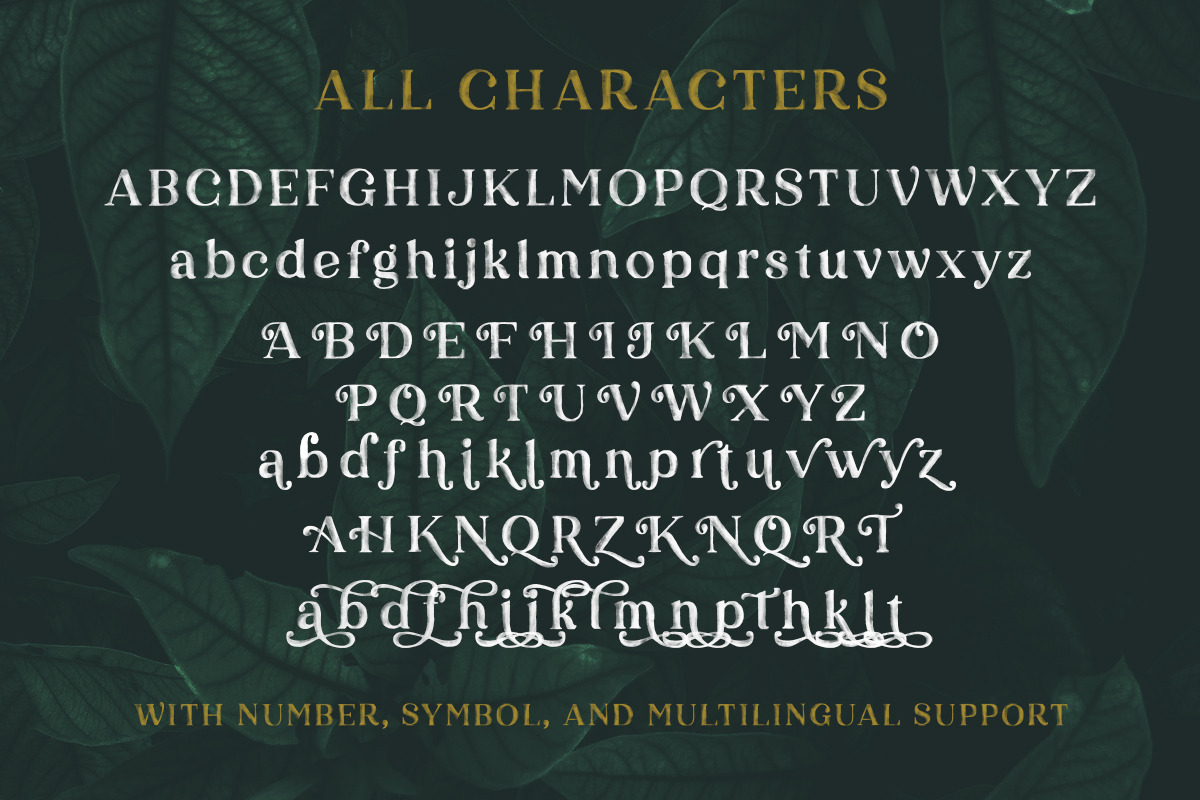
Karelle SVG - An Organic Serif
Introducing, Karelle SVG, an organic serif with alternates!
Karelle is SVG Font with natural feels. Comes with a new format of fonts (SVG) and also with a regular one (OTF). This unique font also included a bunch of alternates. Number, symbol, and another punctuation also included in this fonts. Support multilingual and already PUA encoded! Let this font make your project even more raw and natural!